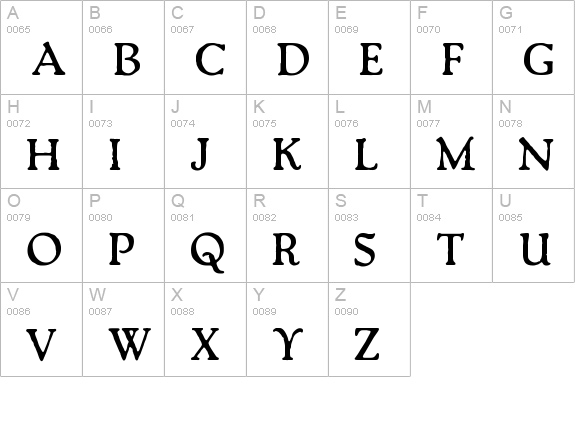
Packard Antique Bold Font Details
Packard Antique Bold is a strong, high-contrast variant in the Packard typeface family \xE2\x80\x94 well suited to headlines, attention-grabbing titles, and strong calls-to-action.
Introducing Packard Antique Bold, a magnificent typeface that exudes a timeless elegance and vintage charm. With its bold and striking letterforms, this font captures the essence of classic antique typography, adding a touch of sophistication to any design project. Packard Antique Bold is meticulously crafted, showcasing a perfect balance between delicate intricacy and bold presence. Each letter is meticulously designed with intricate details, capturing the essence of a bygone era and evoking a sense of nostalgia. This versatile font is perfect for a wide range of applications, from elegant logos and branding to vintage-inspired packaging designs. Its bold and powerful presence adds a touch of class and sophistication to any project, making it a must-have for designers seeking to create memorable and impactful visuals. One of the most remarkable aspects of Packard Antique Bold is that it is freely available to download at FontsMarket.com. This means that designers can easily access this exceptional font, without any restrictions or limitations. This generosity allows designers to explore the endless possibilities of using Packard Antique Bold in their creative endeavors, giving them the freedom to experiment and create stunning visuals that stand out from the crowd. Whether you are a seasoned designer or a novice enthusiast, Packard Antique Bold is a font that will undoubtedly become a staple in your typographic arsenal. Its timeless appeal and versatility make it a perfect choice for a wide range of projects, ensuring that your designs will always have a touch of elegance and sophistication. Download Packard Antique Bold for free at FontsMarket.com and embark on a typographic journey that will elevate your designs to new heights. Let the allure of this exquisite font transport you to a bygone era, where beauty and craftsmanship reigned supreme.